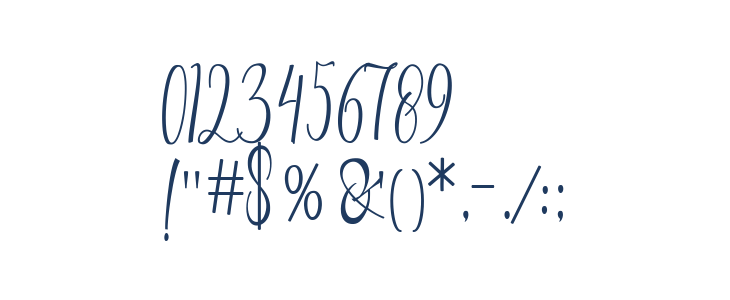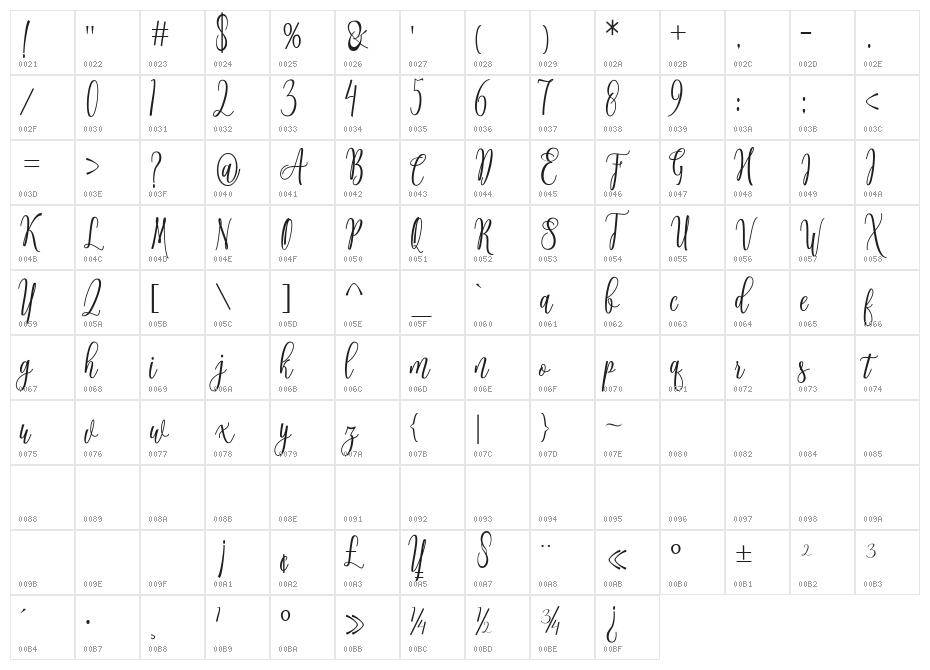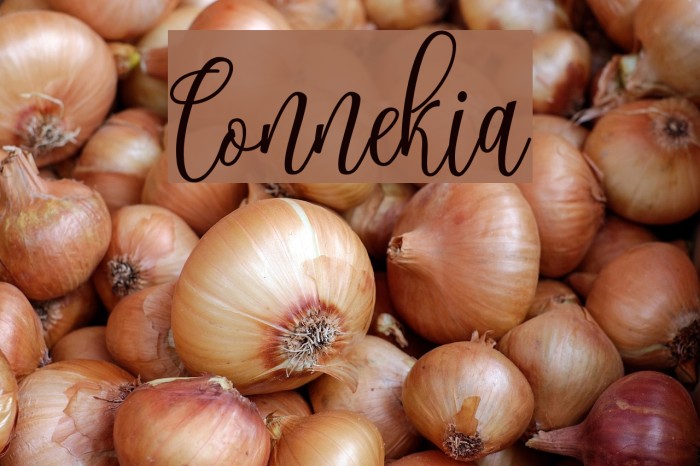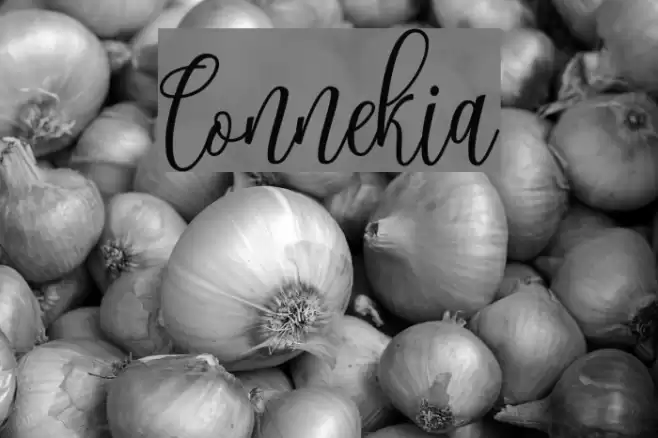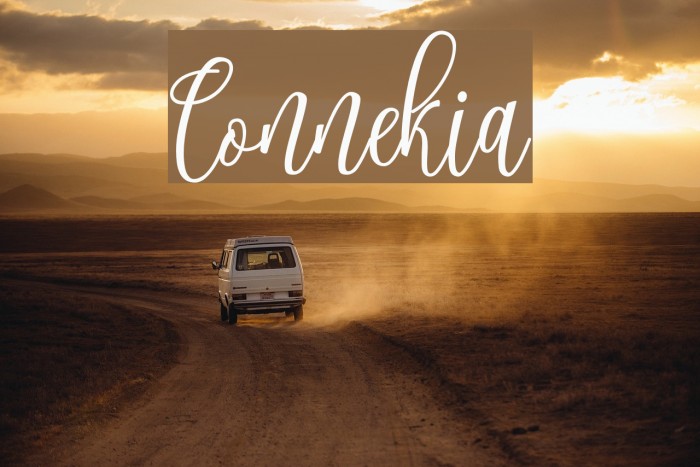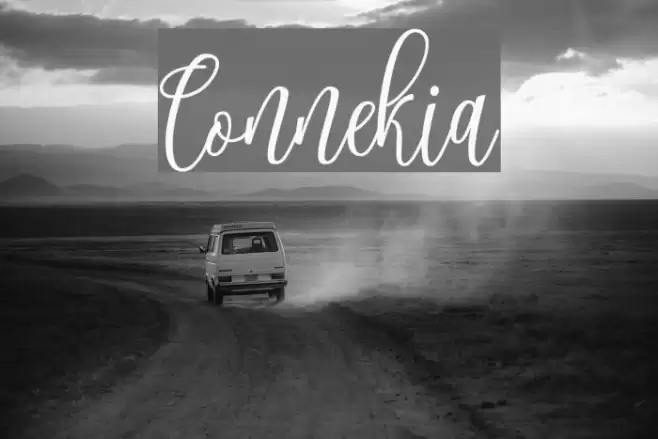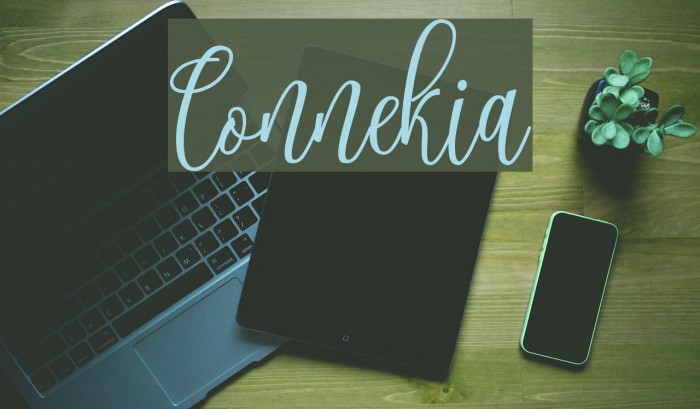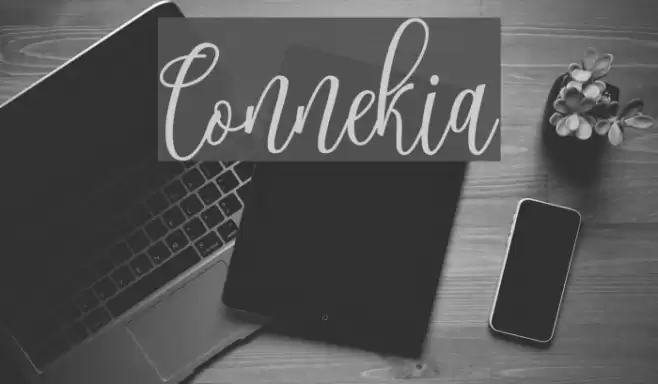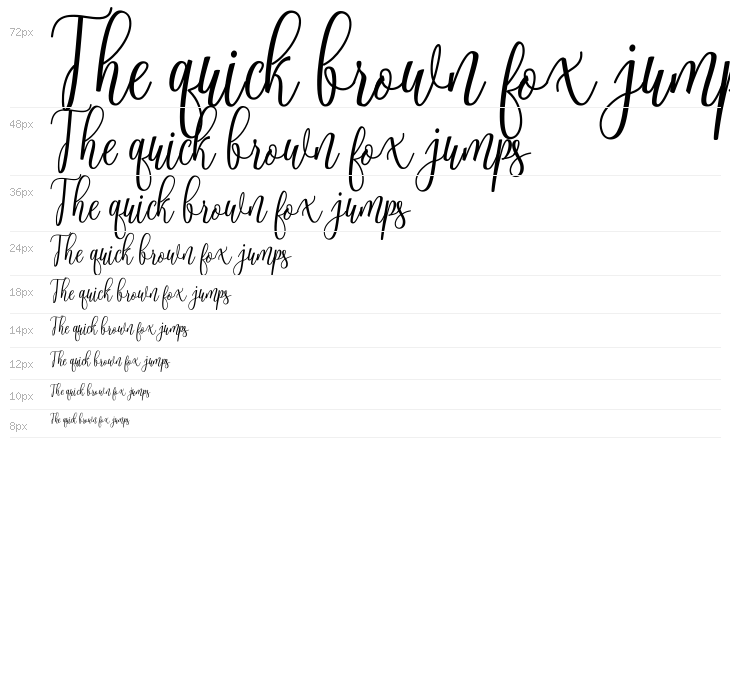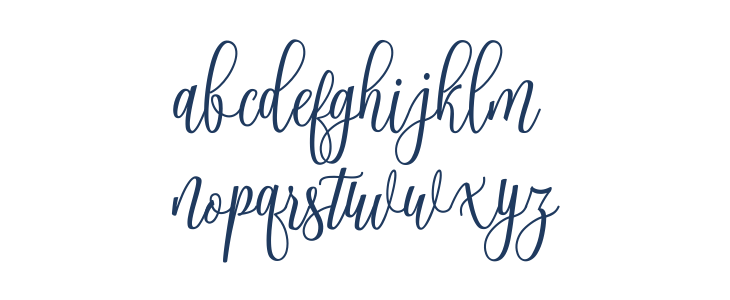
Connekia Font
Connekia Description
This font features an elegant and flowing script style, characterized by its smooth, cursive strokes and graceful loops. The uppercase letters are tall and slender, with a slight slant that adds a dynamic feel. The lowercase letters maintain a consistent flow, with some letters featuring distinctive loops and swashes that enhance the overall aesthetic. The numerals are designed to complement the letters, maintaining the same elegant style. Special characters are integrated seamlessly, ensuring a cohesive look across all glyphs. This font exudes a sense of sophistication and charm, making it ideal for projects that require a touch of elegance.
| Proposed Projects | Ideal for wedding invitations, elegant branding, greeting cards, and high-end product packaging. |